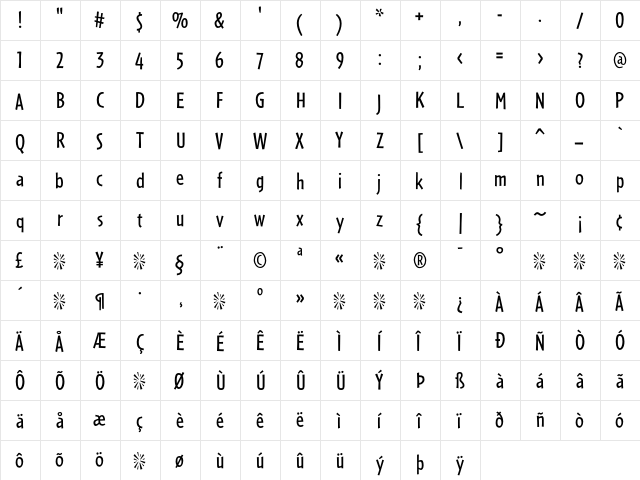
Cafeteria Regular
Design Context for Cafeteria Typeface
Cafeteria takes a measured approach to typography — its balanced proportions and neutral character make it a reliable workhorse for both digital and print work.